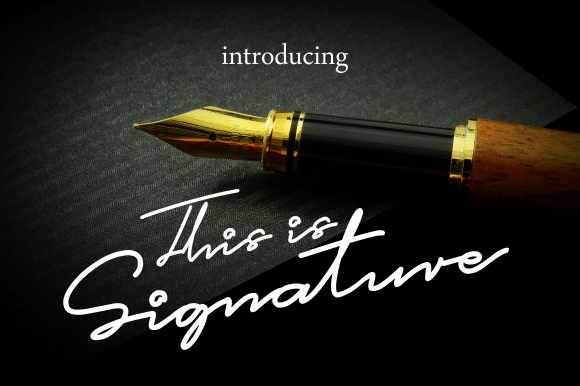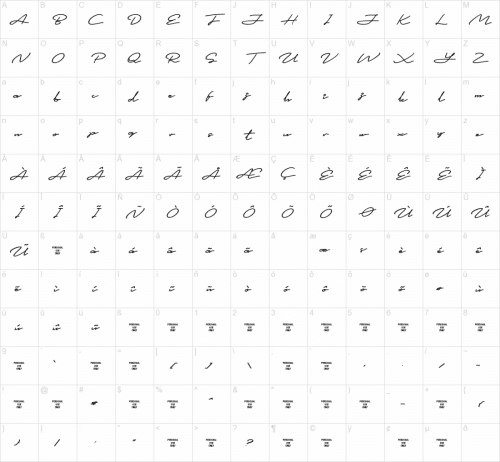
This is Signature was made from an actual hand writing so it has a natural and professional Impression. Perfect to be used for signatures, wedding invitations, greeting cards, logos and much more!